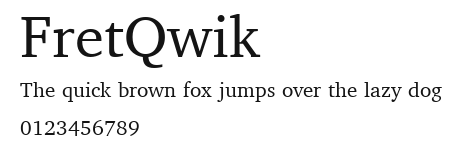
• Font Name: FretQwik
• Designer: Robert Allgeyer (Santa Cruz, CA USA)
• Description: This is version 2.40. Version 2.10 added mini-Roman numerals. Version 2.20 modernized the codepage (a technical detail). Version 2.30 was not publicly released. In version 2.40, the small 0 character has been added at fret level and at nut level; character combo fr. has been added at fret level; and a half-space has been added. Also, some unused code locations have been temporarily filled with spaces, so that the codepage looks like that of other fonts. The current version is drop-in compatible with previous versions. However, older versions may be missing a few characters presently in the font. Version 2.40 also added FretQwikC, an alternative version of the font, with narrower fretboard. FretQwik and FretQwikC are separate fonts, but (except for shape of fretboard and associated items) are interchangeable. FretQwik is a special-purpose font for creating guitar fret diagrams as if they were text. The ASCII character range (keyboard characters) are the same as would be found in an ordinary text font. But in the upper code range, FretQwik has symbols that can be pieced together to form most common tablature diagrams. These characters can be selected from a character map utility, preferably one with 16 columns. How to use it: Using a character map, look for the fret grid symbol (it is at code location decimal 0176). Above the fret grid, at code 0160, is the non-breaking space. In the column adjacent to the fret grid, there are dots representing finger positions. In the same row as the non-breaking space there is an open circle positioned above the fret grid. Below it is a filled circle at the first finger position, and so on down the column. Begin with a fret grid. Place a dot for the first string. Move to the next string using the non-breaking space. Place a dot for the second string. Continue. You may omit a dot on any string, but you must use the non-breaking space to move from string to string. You may also place arcs across the strings. An arc is placed at its leftmost point. Arcs in the same row as the non-breaking space will be positioned above the fret grid. Moving down the rows, arcs move further down the fretboard. The width of arcs varies from the full width of the fretboard (in the column adjacent to the dots), down to merely spanning adjacent strings. There are also some other symbols useful for spelling the chord name. This font was derived (modified) by Robert Allgeyer using Bitstream Charter Type 1 font distributed under free public license as part of Ghostscript. The following permission accompanies the distribution: "(c) Copyright 1989-1992, Bitstream Inc., Cambridge, MA. You are hereby granted permission under all Bitstream propriety rights to use, copy, modify, sublicense, sell, and redistribute the 4 Bitstream Charter (r) Type 1 outline fonts and the 4 Courier Type 1 outline fonts for any purpose and without restriction; provided, that this notice is left intact on all copies of such fonts and that Bitstream's trademark is acknowledged as shown below on all unmodified copies of the 4 Charter Type 1 fonts. BITSTREAM CHARTER is a registered trademark of Bitstream Inc."
FretQwik.ttf is a modern, elegant sans-serif font designed for ultimate readability and visual harmony. Perfect for branding, headlines, web design, and print materials.